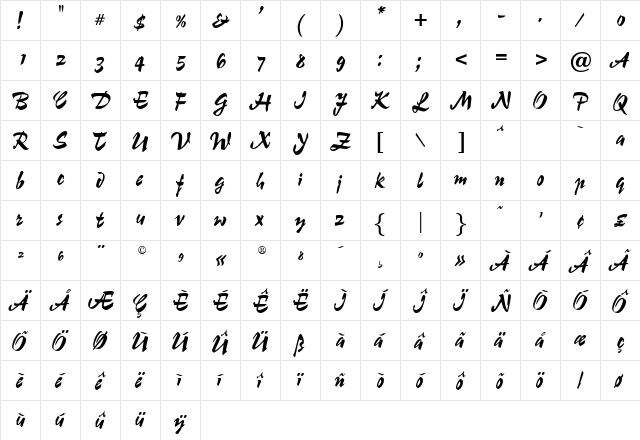
OPTIChampion Script
Design Context for OPTIChampion Typeface
OPTIChampion flows with the natural rhythm of handwritten lettering, making it ideal for designs that call for warmth and personal expression.
Font Pairing: Combine OPTIChampion with a simple geometric sans for maximum contrast — the tension between flowing curves and clean structure is a classic typographic pairing.
Pro Tip: Use OPTIChampion for short runs of text — names, titles, or taglines. Extended body copy in script faces tires the eye quickly.